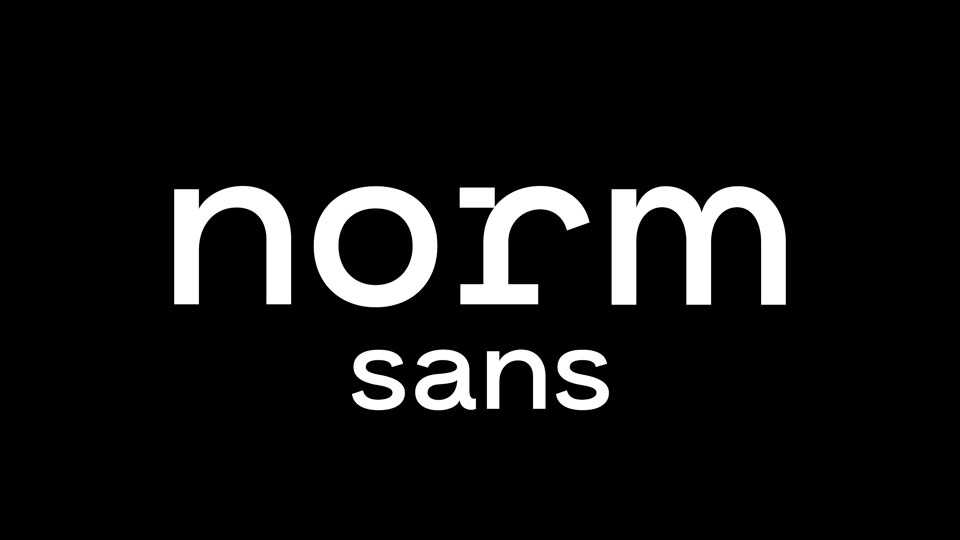
Download Norm Sans typeface, a contemporary sans serif font family in 7 weights that blends monospace functionality with modernist geometric accents.
Designer: Joshua Shao